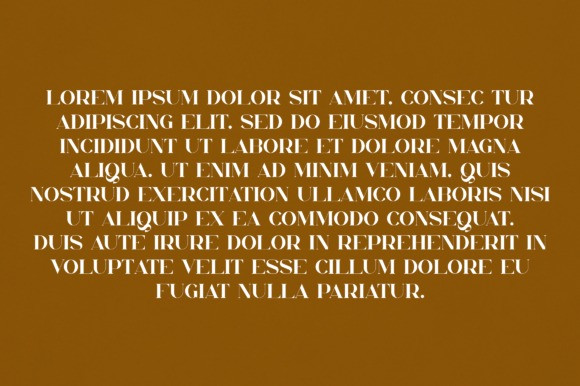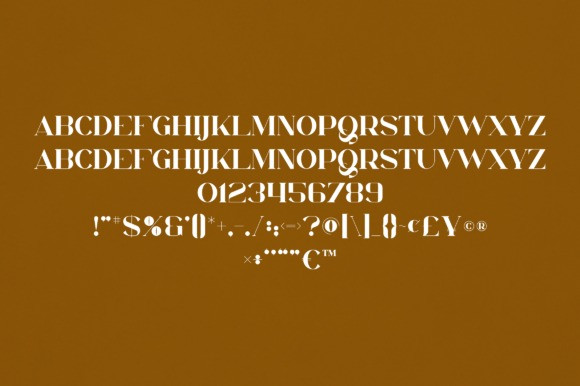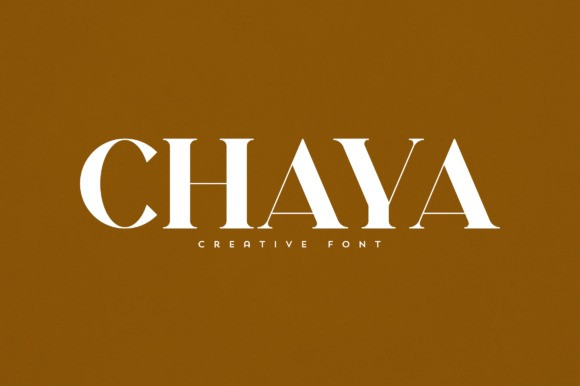
Chaya Font
Chaya Font is an elegant and versatile font that will make your typography truly unique! It will enchant every logo, branding, headline, or plain text!